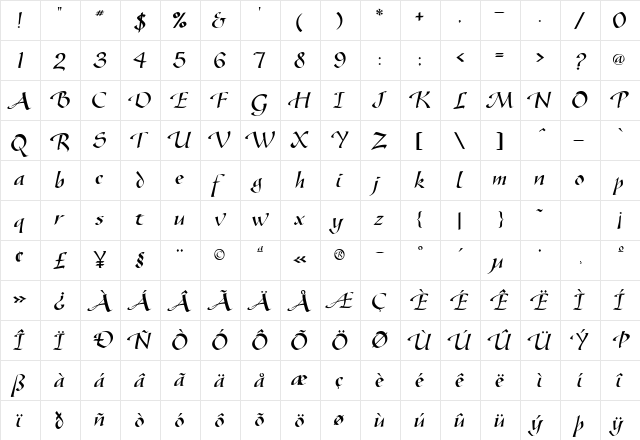
Gaston Regular
Design Context for Gaston Typeface
Gaston is a composed and adaptable typeface that performs quietly and consistently across a wide range of design contexts.